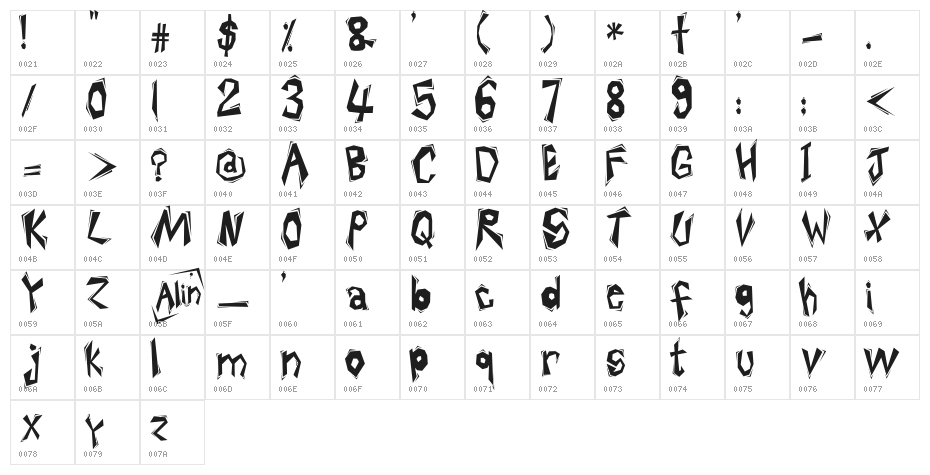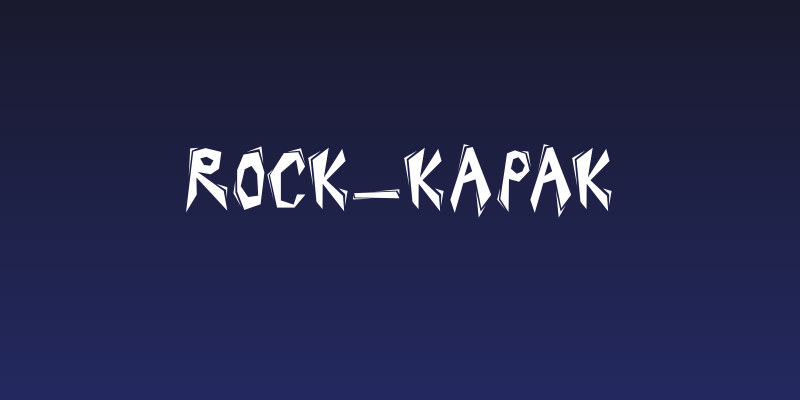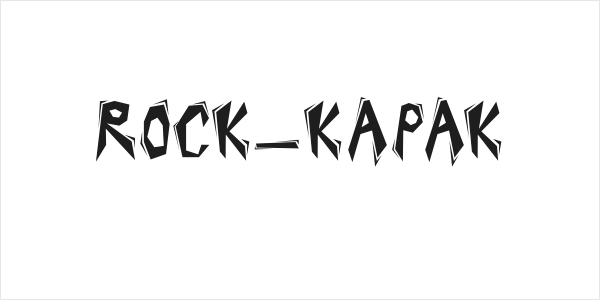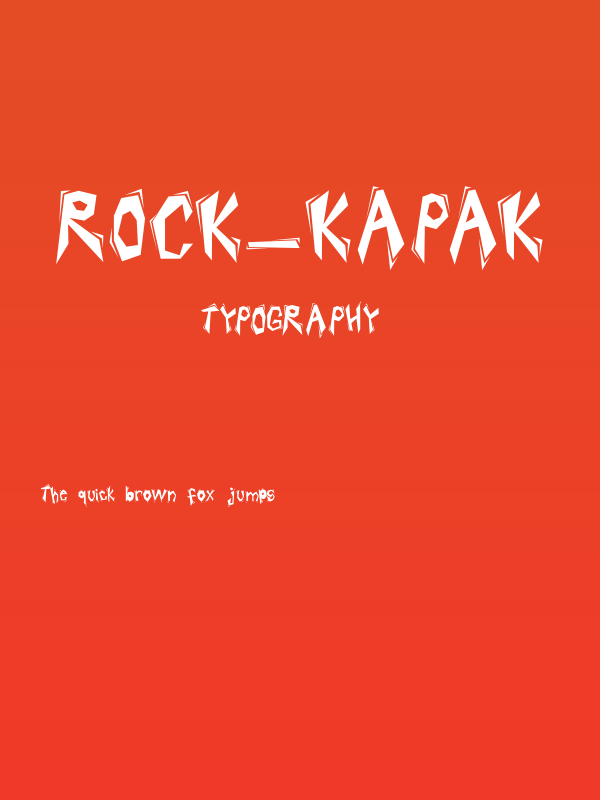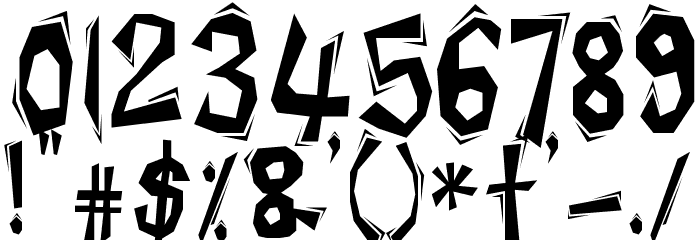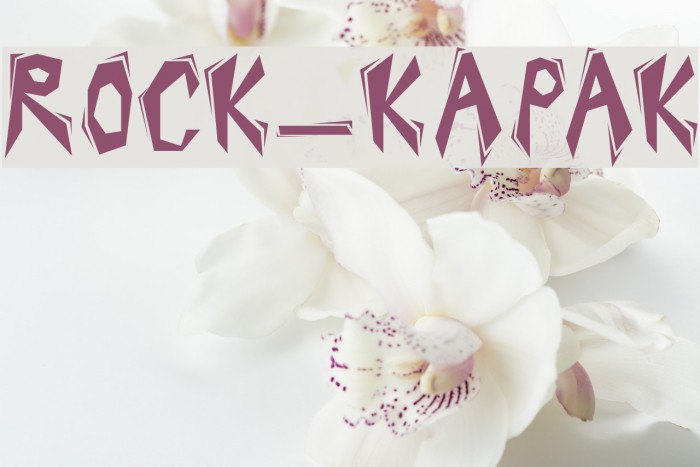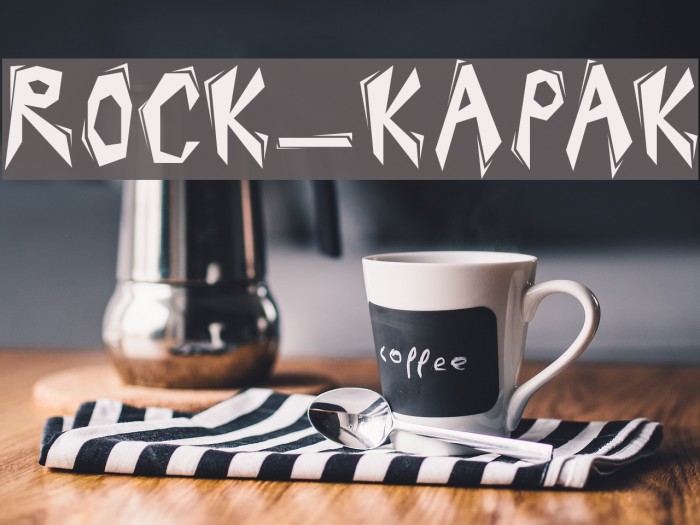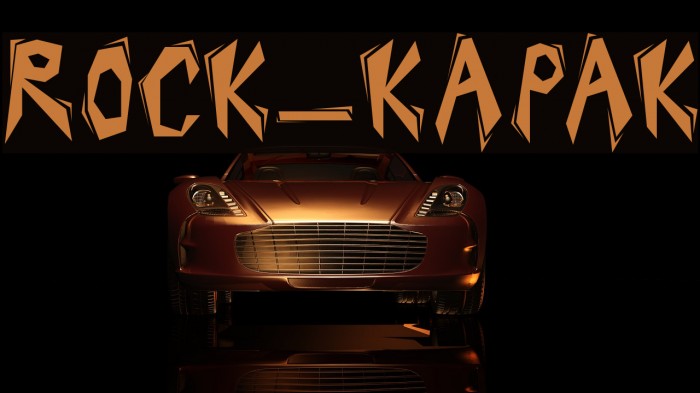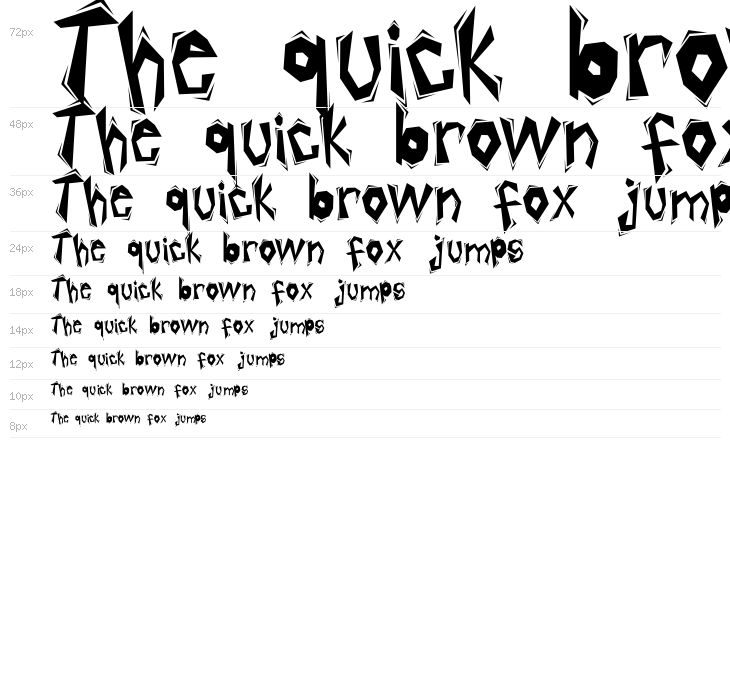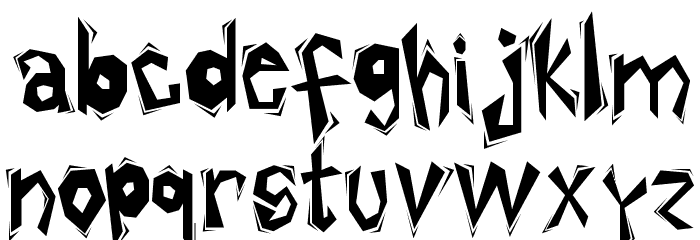
ROCK_KAPAK Font
ROCK_KAPAK Description
This font features a bold and edgy design with sharp, angular lines that give it a dynamic and energetic feel. The characters are crafted with a jagged, rock-like appearance, creating a sense of movement and intensity. The uppercase and lowercase letters maintain a consistent style, while the numbers and special characters complement the overall aesthetic. The font's unique design makes it stand out, ideal for projects that require a strong visual impact. Its distinctive style is reminiscent of rock music and urban graffiti, making it suitable for creative and unconventional applications.
| Overall Style | Modern, Edgy |